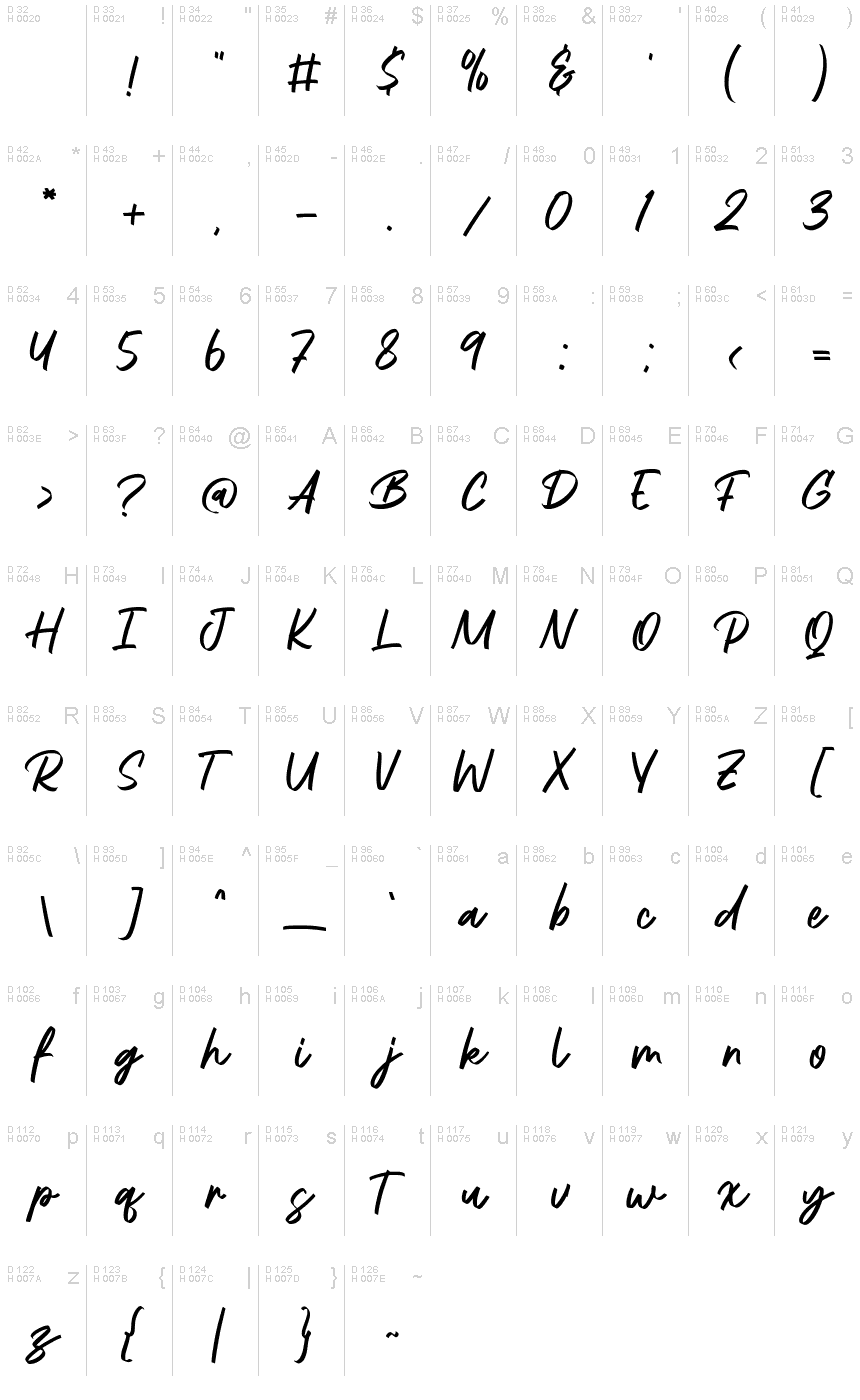
Kingdom Heaven
Kingdom Heaven is a charming handwriting font designed by Hatf Type, perfect for bringing a touch of whimsy to your projects. Its semi-light weight lends a delicate and airy feel to any design, while the handwritten style adds character and personality. Use Kingdom Heaven for invitations, greeting cards, or any project in need of a playful touch. Let it bring warmth and joy to your designs with its unique and organic lettering. This font is also suitable for use in branding materials such as logos or product packaging, adding a personal touch that will make your brand stand out from the crowd.